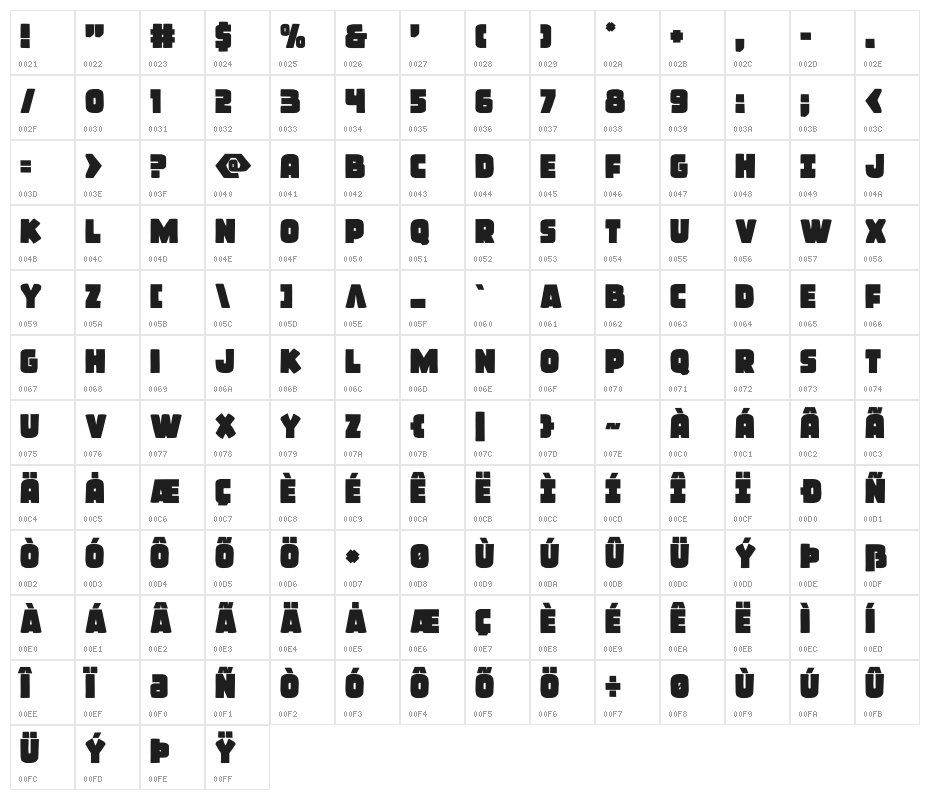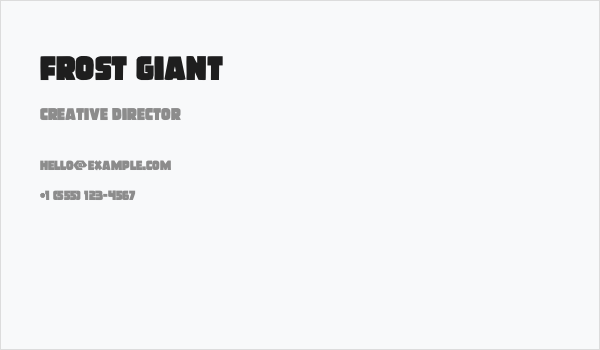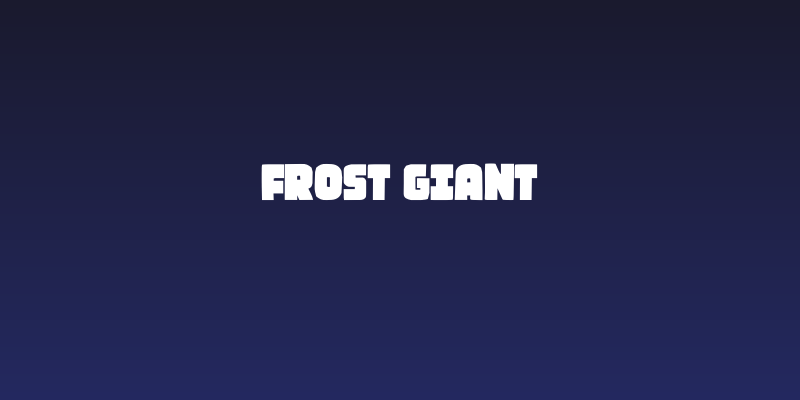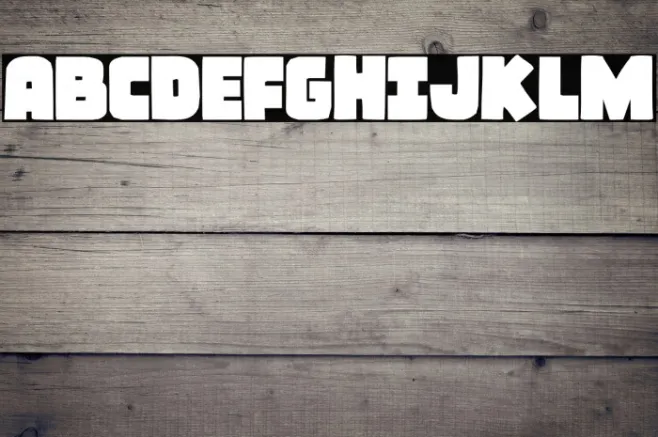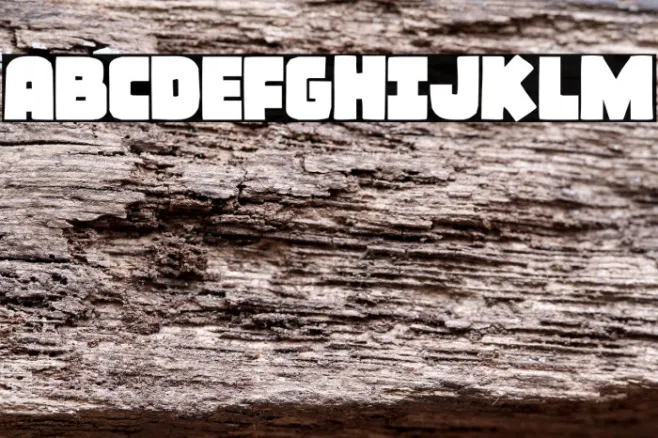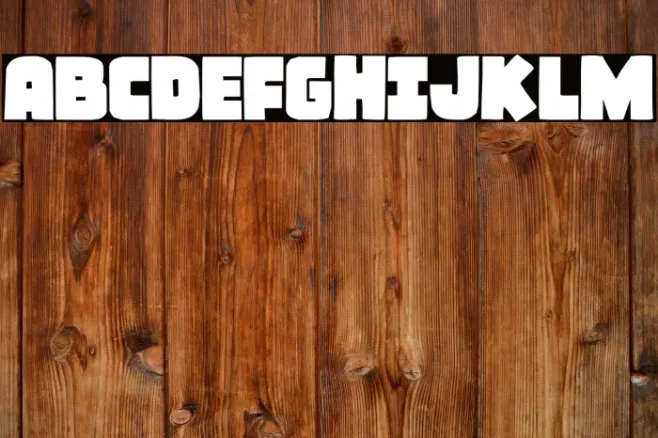
Frost Giant Font
Frost Giant Description
This bold and robust font features thick, blocky characters with a strong presence. The uppercase letters are uniformly wide, giving a sense of stability and strength. The lowercase letters maintain the same boldness, ensuring consistency across the typeface. Numbers are equally bold, with a geometric style that complements the overall design. Special characters are crafted with the same attention to detail, making them stand out without losing harmony with the rest of the font. The font's heavy weight and solid structure make it ideal for impactful designs where visibility and emphasis are key.
| Proposed Projects | Ideal for posters, headlines, logos, and branding materials that require a bold statement. |